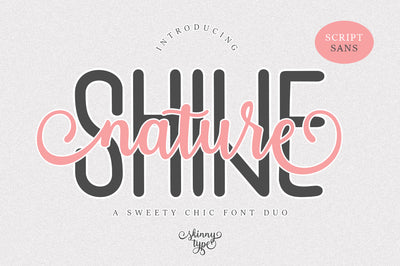
Shine Nature - A Sweet Chic Font Duo
Introducing Shine Nature - A Sweet Chic Font Duo
Shine Nature, just as sweet as flowers, flawless as you! A perfect font for your minimal yet beautiful website, social media branding, Pinterest banners, printed invitations, and more!
Shine Nature fonts, like a fragrance, speak your heart, your audience’s, clients and guests and people around you!
Multilingual & Ligature Support
Full sets of Punctuation and Numerals